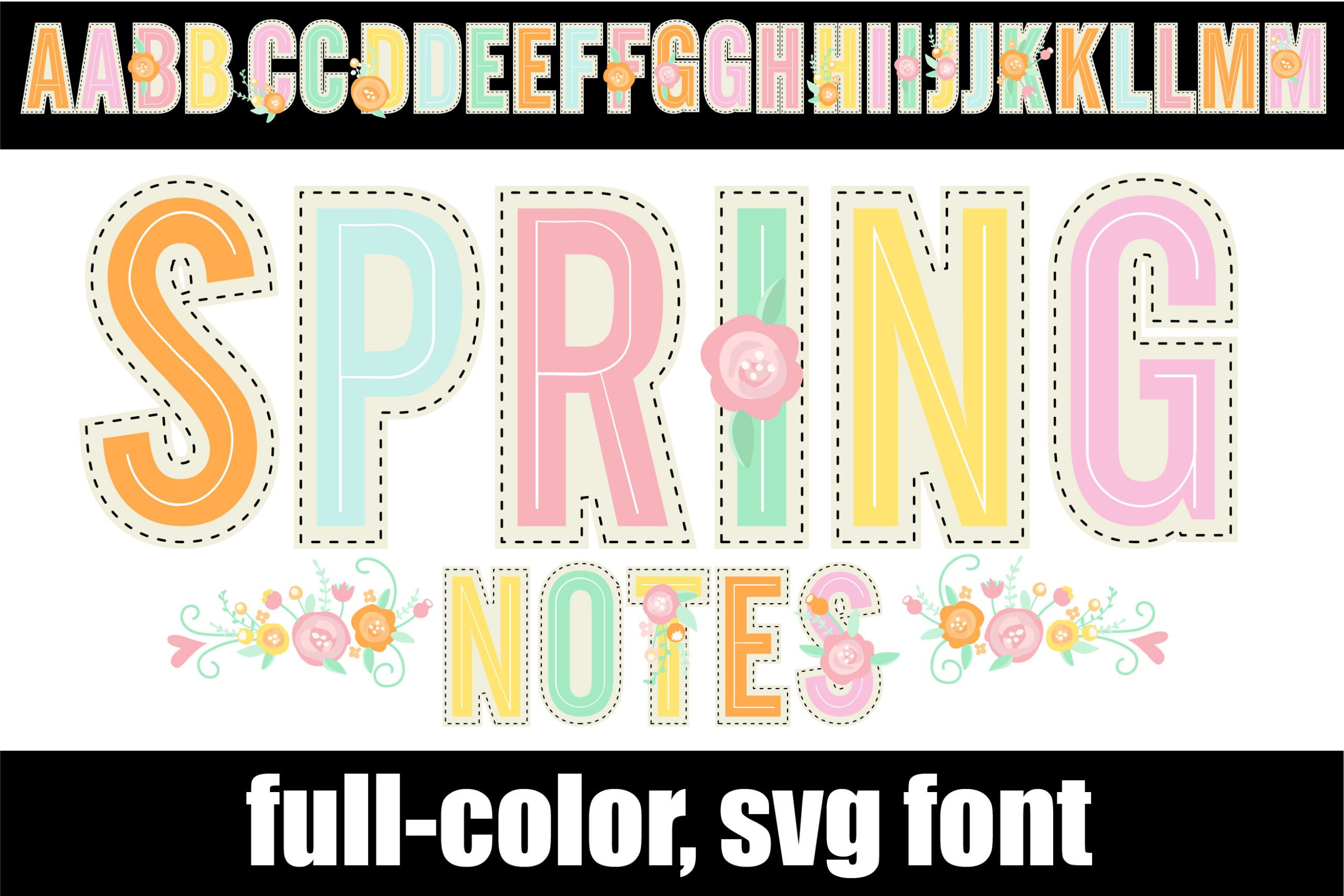
Spring Notes is a full-color font that features heavy sans serif lettering in pastels with some flowers here and there. Add this chunky lettered font to your designs and notice how it makes them come alive!